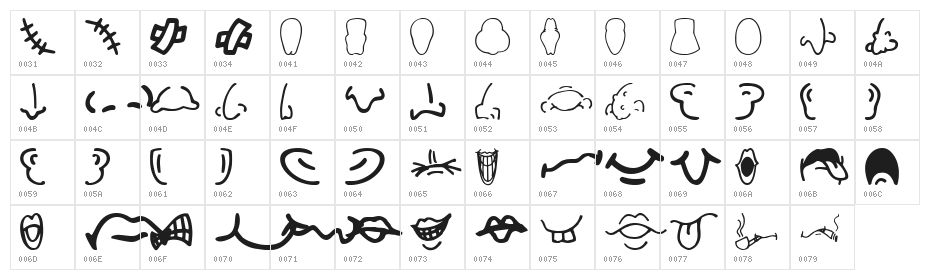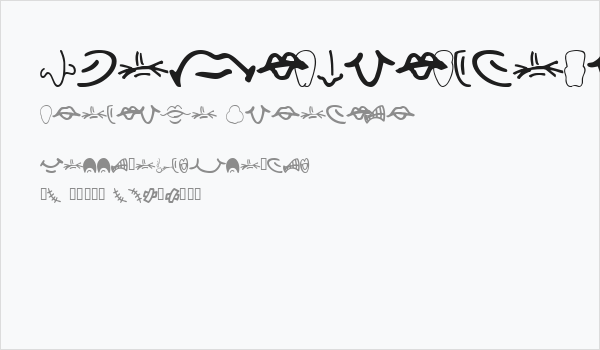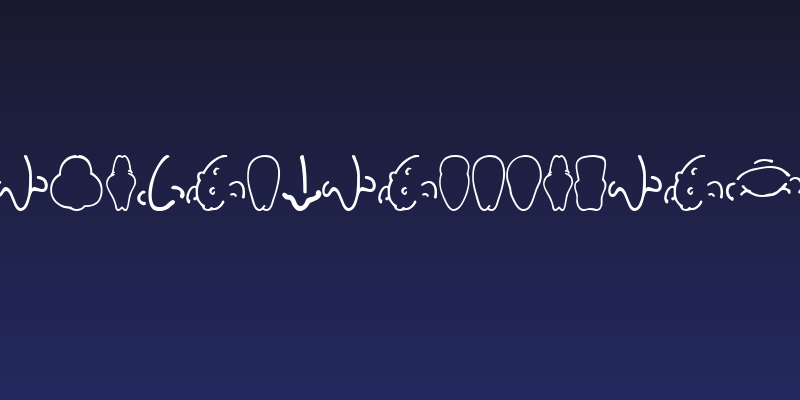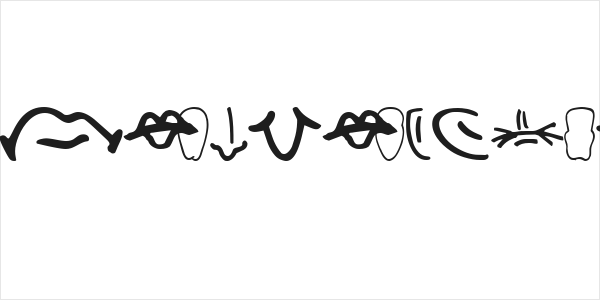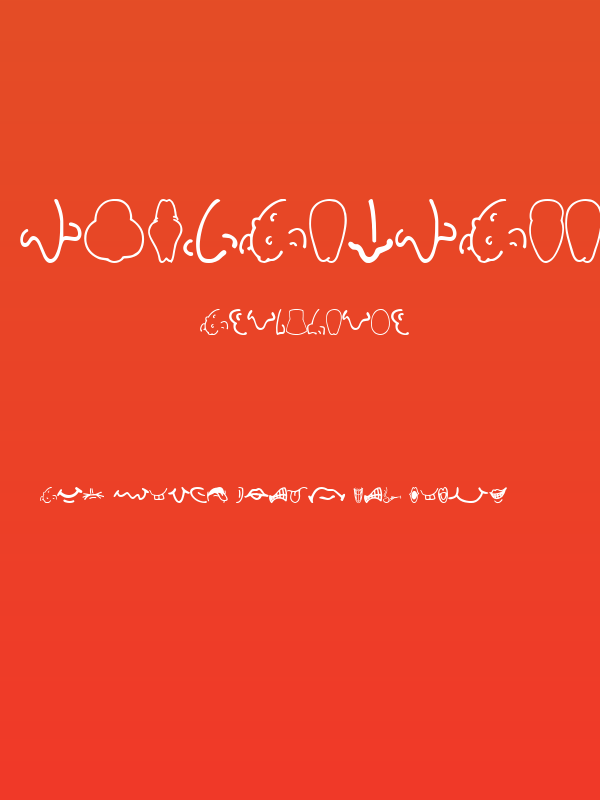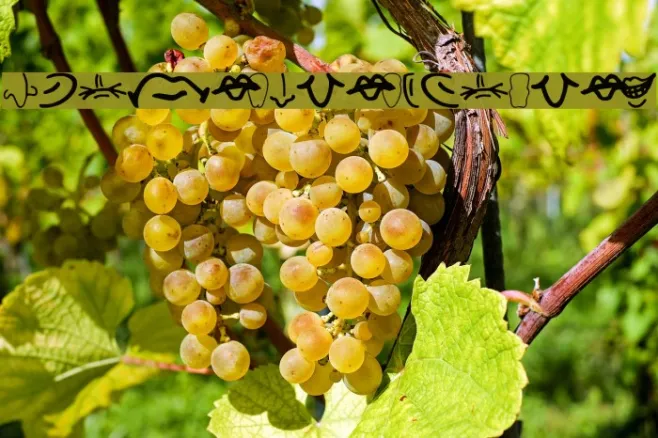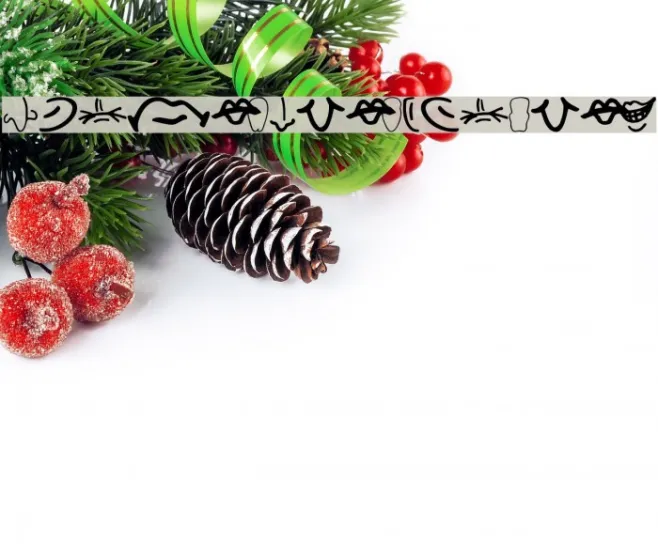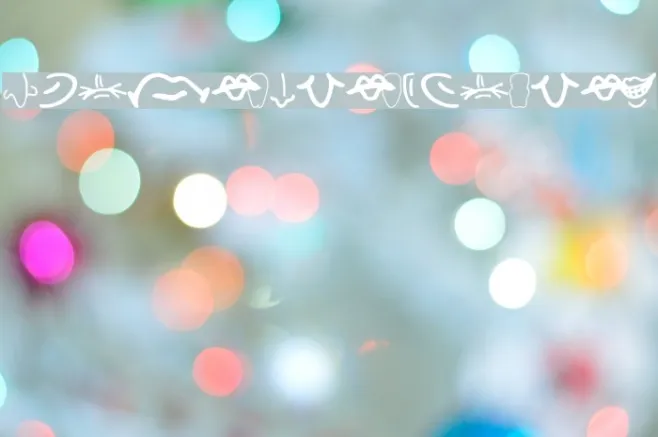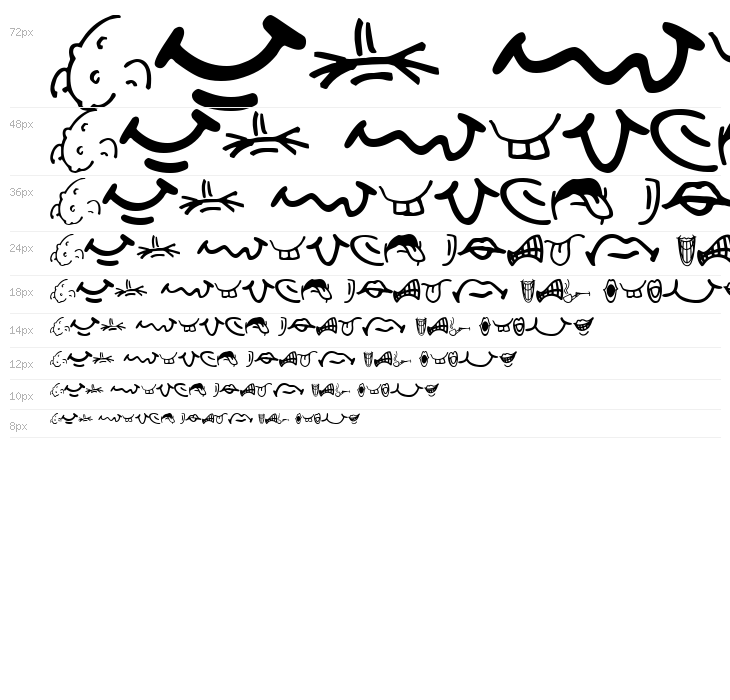
IdentAKitFaceBits Font
IdentAKitFaceBits Description
A playful and illustrative font composed of various facial feature doodles, including noses, mouths, eyes, and ears, each glyph resembling a different part of a cartoon face. The lines are hand-drawn and vary in thickness, giving a whimsical and expressive appearance. The characters are highly stylized and not traditional alphanumeric forms.
| Overall Style | Playful, Whimsical, Illustrative |
| Use Case | Display, Themed posters, Creative projects |
| Proposed Projects | Children's books, party invitations, comics, educational materials, playful branding. |